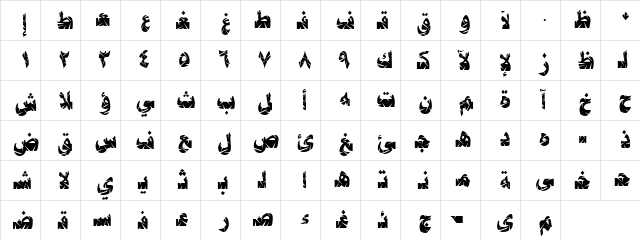
ALW Cool Jeddah Slit. Normal
Design Context for ALW Cool Jeddah Slit.
ALW Cool Jeddah Slit. is a composed and adaptable typeface that performs quietly and consistently across a wide range of design contexts.